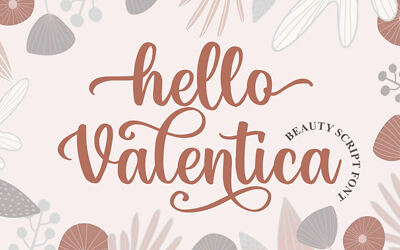
Hello Valentine is a lovely modern calligraphy font with pretty tails. This font is perfect for expressing your happiness with your partner.
Hello Valentine is very beautiful and elegant that can be used for Valentine’s Day, weddings, capturing romantic stories, quotes, branding, logos, banners, and more.